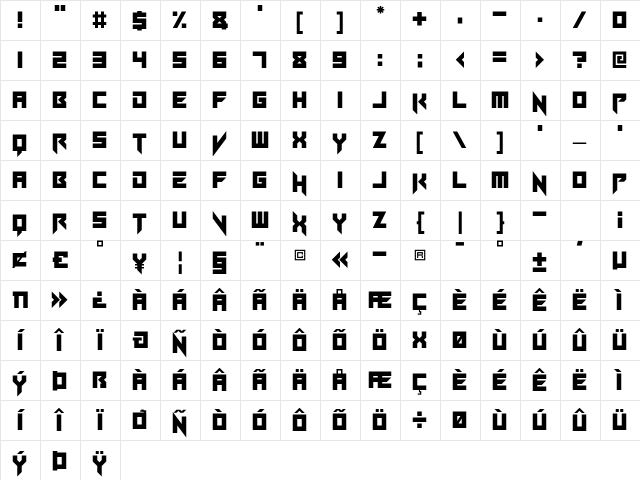
Neon Energy x Regular Free Font
Neon Energy x Regular
Design Context for Neon Energy x
Neon Energy x has a distinctly futuristic character, with geometric precision and clean angles that feel at home in technology, gaming, and sci-fi contexts.